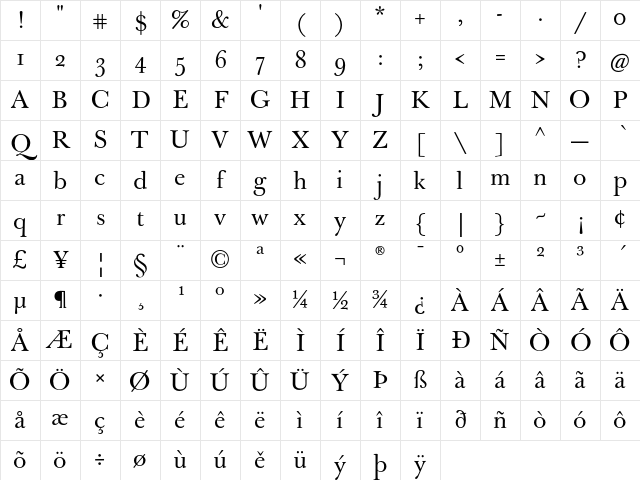
J Baskerville Regular
Foundry: Frantisek Storm, www.stormtype.com
Design Context for J Baskerville
J Baskerville is a composed and adaptable typeface that performs quietly and consistently across a wide range of design contexts.